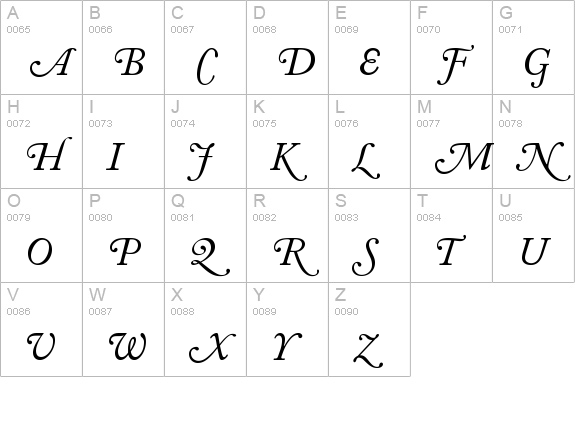
Adobe Caslon Swash Italic is a distinctive, italic variant in the Adobe typeface family \xE2\x80\x94 well suited to design and typography projects.
Adobe Caslon Swash Italic is a classic and elegant serif font that exudes sophistication and charm. With its graceful curves and delicate swashes, this typeface adds a touch of refinement to any design project. The italic style of Adobe Caslon Swash enhances the fluidity and grace of the characters, making it perfect for use in invitations, wedding stationery, and editorial designs. What sets Adobe Caslon Swash Italic apart is that it is available for free download at FontsMarket.com. This means that you can easily access this beautiful font and use it in your creative projects without any cost. Whether you are a professional designer looking to elevate your work or a hobbyist exploring new typography options, Adobe Caslon Swash Italic is a versatile and timeless choice that will enhance the visual appeal of your designs. Download it today and add a touch of elegance to your projects.